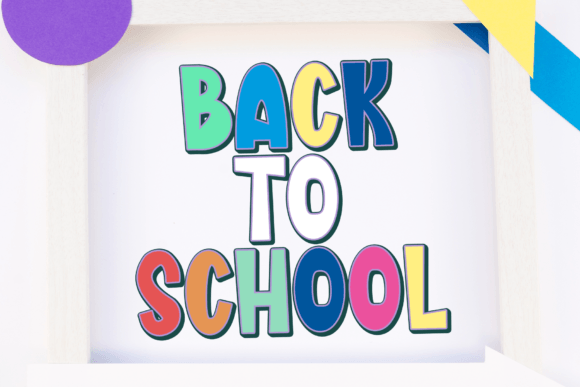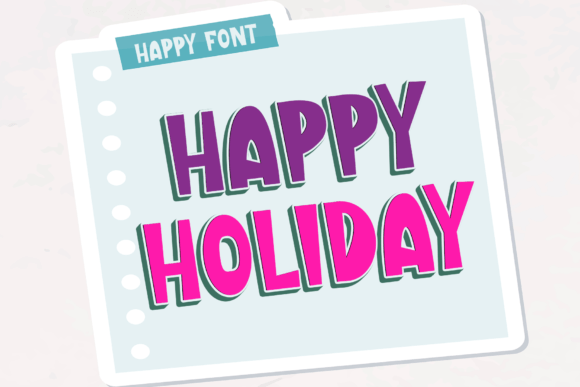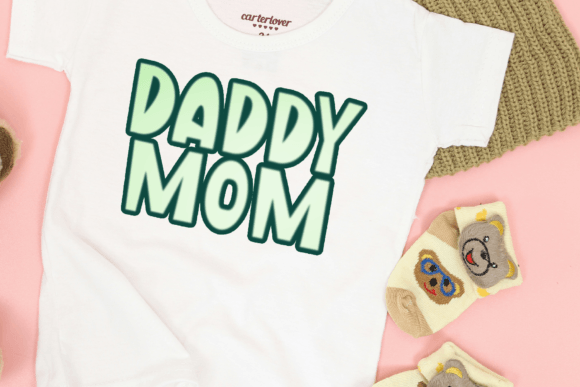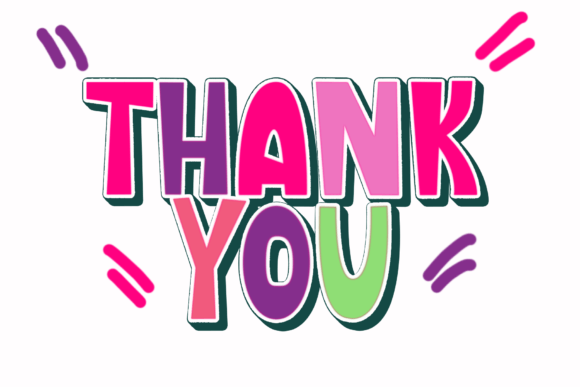
The Perfect Typography Match for Your Next Creative Project
Remember that moment when you stumbled upon the perfect font, and your design project suddenly came alive? For designers, it’s a moment of pure joy and relief. It’s the difference between a good design and a great one. And that’s exactly what the Back Space Font offers – a chance to elevate your design to the next level.
This charming display font is more than just a pretty face; it’s a versatile tool that can add a touch of freshness and casual elegance to any design project. From branding to invitations, and social media graphics, the Back Space Font is the perfect companion for designers who want to add a bit of personality to their work.
Whether you’re a seasoned pro or just starting out, the Back Space Font is an essential addition to your design toolkit. Its fluid strokes and organic lines make it easy to work with, and its laid-back vibe is sure to resonate with your audience.
Back Space Font Key Features
- Font Family: Back Space Font is a unique, modern sans-serif font family designed for digital interfaces.
- Font Size: Available in 6 different weights (Hairline, Light, Regular, Medium, Bold, and Black) to cater to various design needs.
- Unique Characteristics: Back Space Font features a distinctive, geometric shape with a subtle rounded edge, giving it a friendly and approachable feel.
Back Space Font Review
I recently had the chance to work with the Back Space Font, and I have to say it’s been an interesting experience. Here are my thoughts:
- The Back Space Font has a unique aesthetic that sets it apart from other fonts. Its futuristic feel is perfect for tech-related projects or anything that needs a touch of modernity.
- The font is highly customizable, allowing you to adjust the weights, sizes, and line heights to fit your design needs.
- The font is also relatively lightweight, making it a great choice for web development or projects where file size is a concern.
- The Back Space Font can be a bit difficult to read at smaller sizes, which may limit its use in projects where text is the primary focus.
- The font’s futuristic feel may not be suitable for all projects, particularly those with a more traditional or classic aesthetic.
- The font’s customization options can also be overwhelming, making it difficult to find the perfect combination of settings.
Overall, the Back Space Font is a solid choice for projects that require a modern and futuristic feel. While it may have some limitations, its unique aesthetic and high level of customizability make it a great option for designers looking to push the boundaries of their design.
Some common use cases for “Back Space Font” include:
- Adding a unique touch to a design or presentation.
- Creating a sense of nostalgia or retro aesthetic.
- Highlighting important text or creating visual interest.
Remember to use “Back Space Font” sparingly and in context to avoid overwhelming your design or audience.
Alternatives to “Back Space Font” for Designers
Axiforma
Axiforma is a sans-serif font with a futuristic feel. It’s ideal for tech-related projects, futuristic designs, and where a modern look is desired. Compared to Back Space Font, Axiforma is more geometric and has a more futuristic feel, making it a great choice for projects that require a cutting-edge look.
Montserrat is a sans-serif font designed for urban environments. It’s great for projects that require a clean, modern look and is suitable for use in headings and body text. Compared to Back Space Font, Montserrat is more versatile and has a wider range of uses, making it a popular choice for designers.